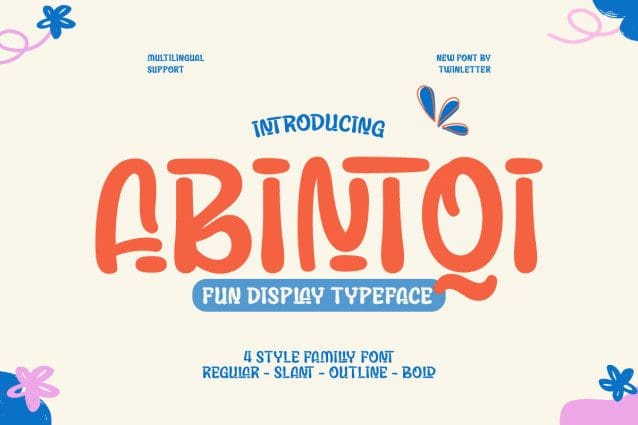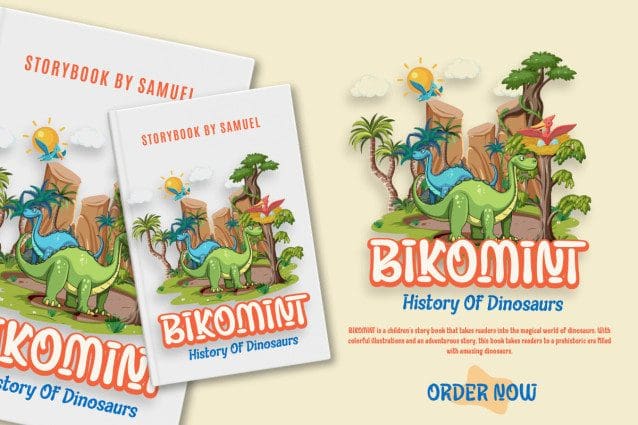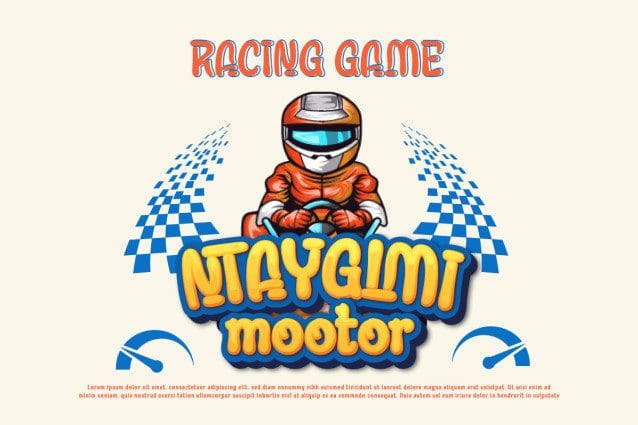
Abintqi Display Font
Abintqi Display Font, an adorable and eye-catching display font. Designed to highlight the playful side of each work, Abintqi presents a cheerful and encouraging atmosphere. Ideal for children’s designs, creative products, or projects that need a touch of playfulness, this font brings warmth and happiness into every detail.